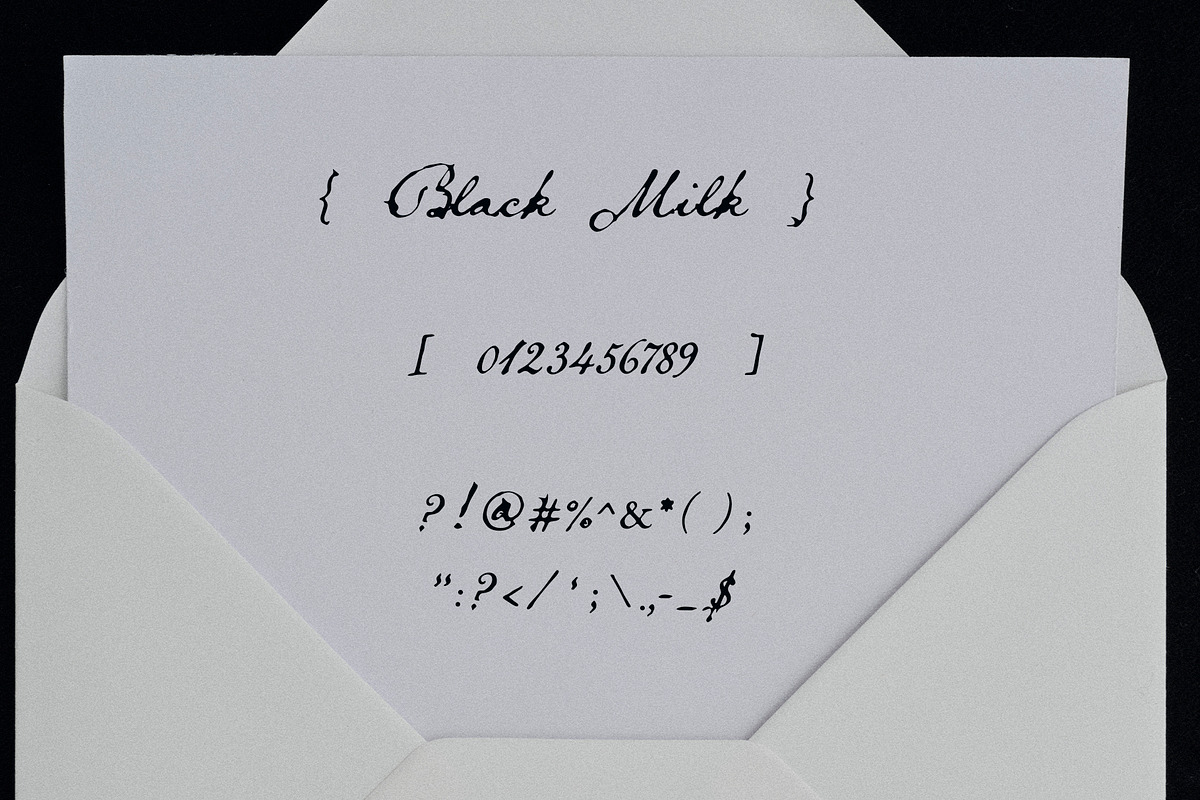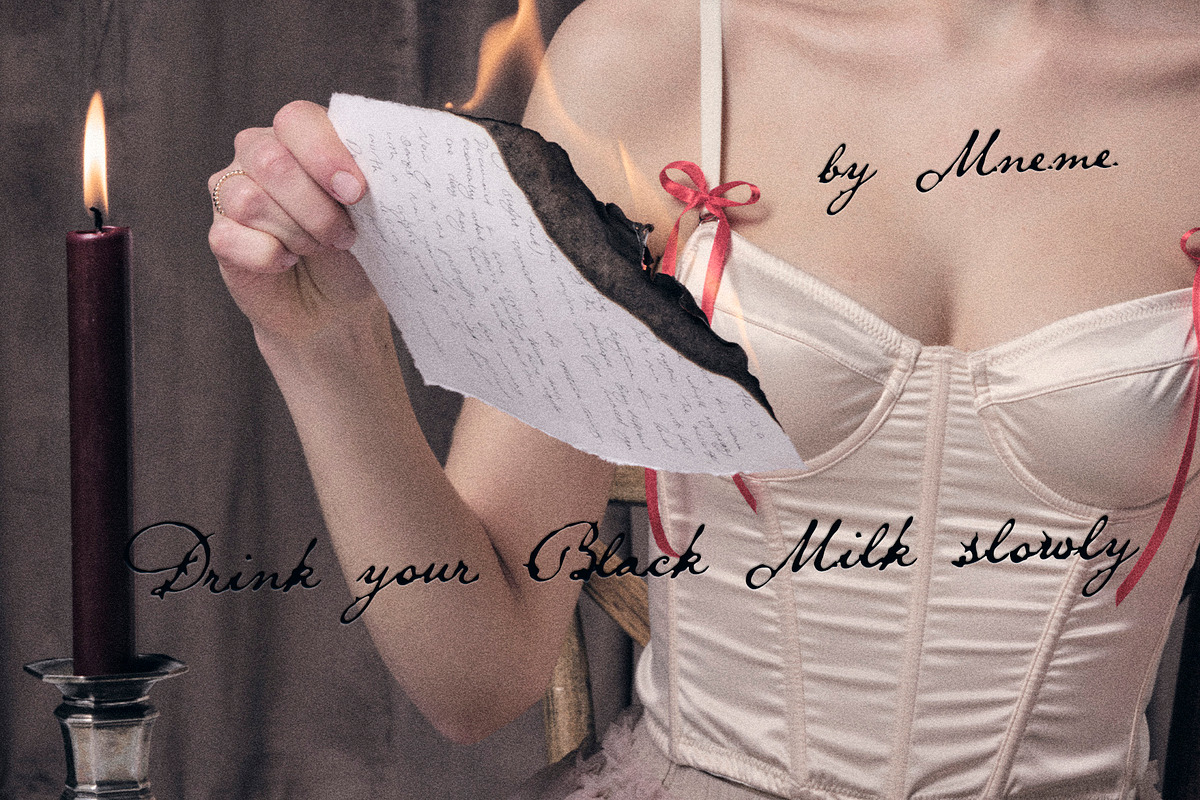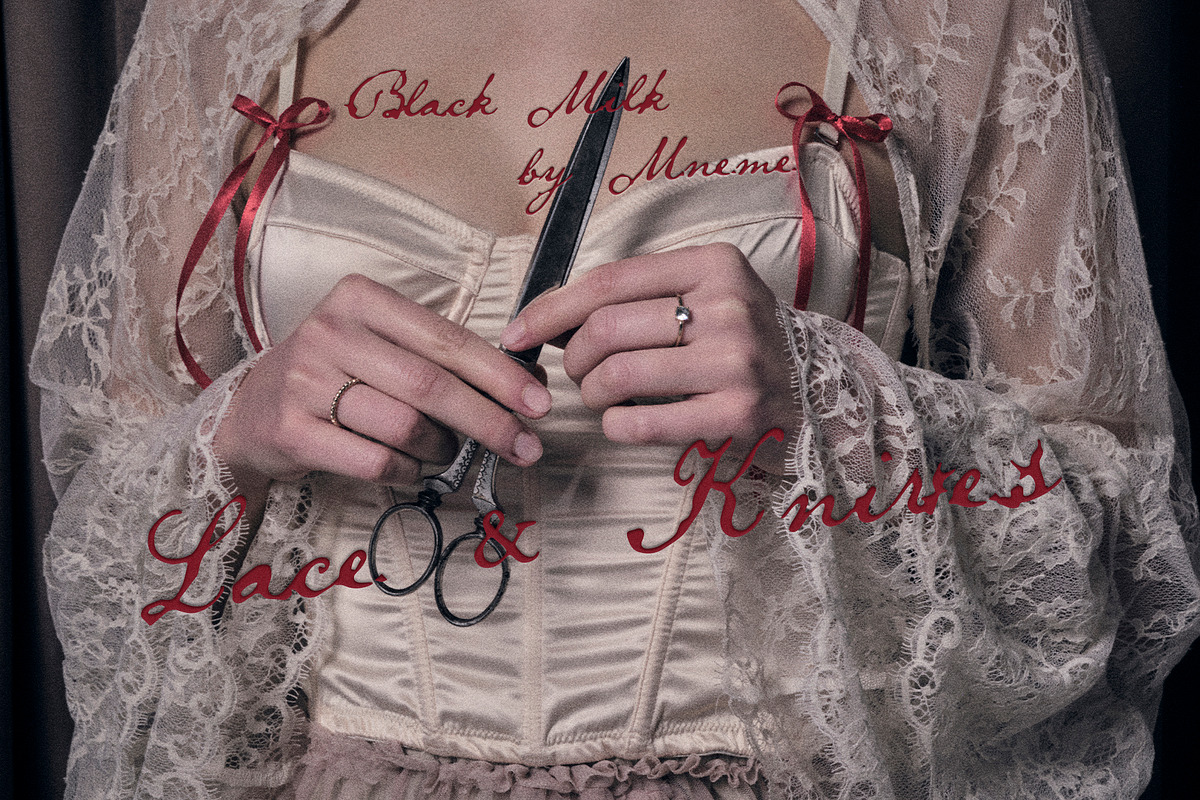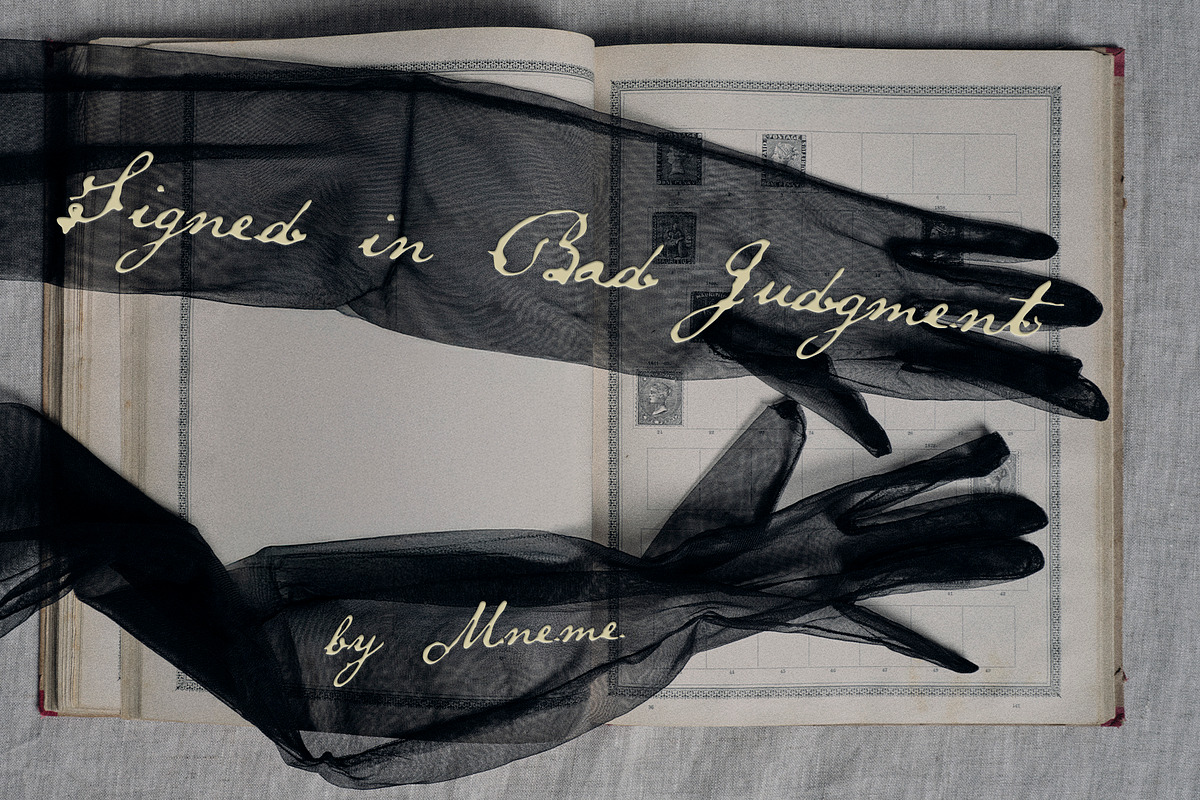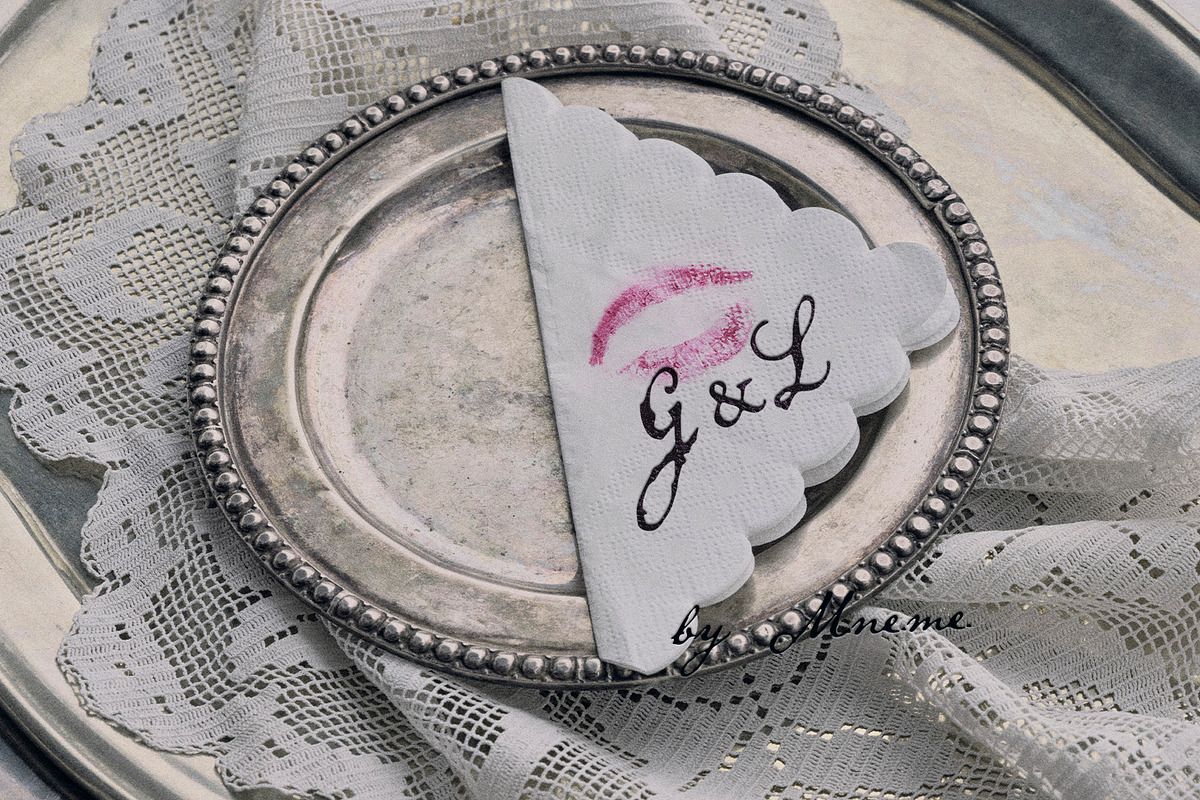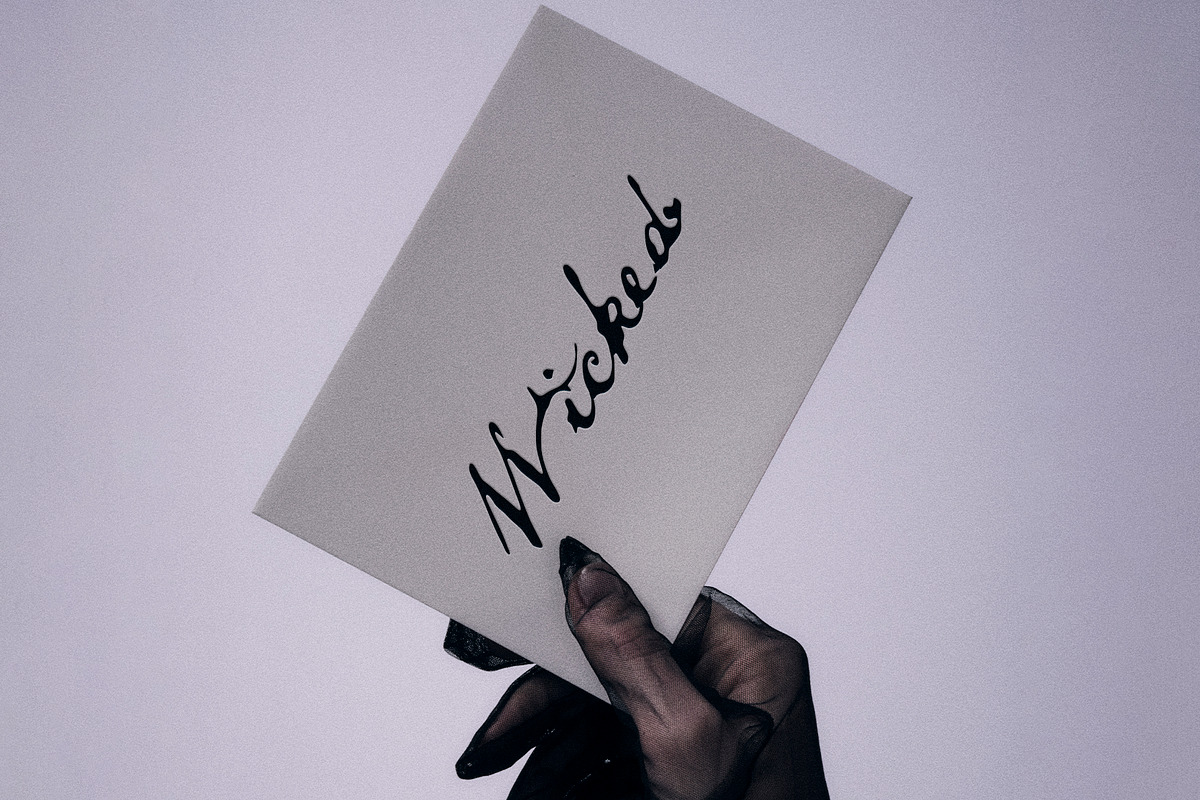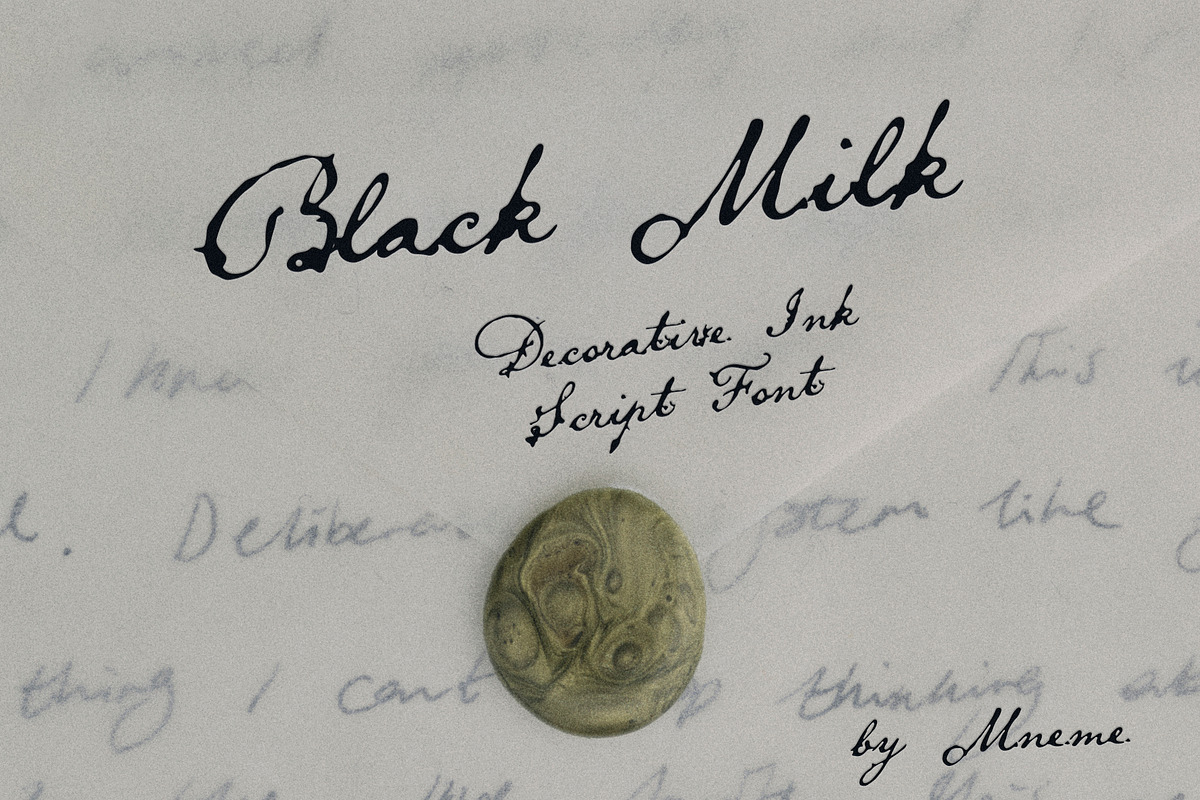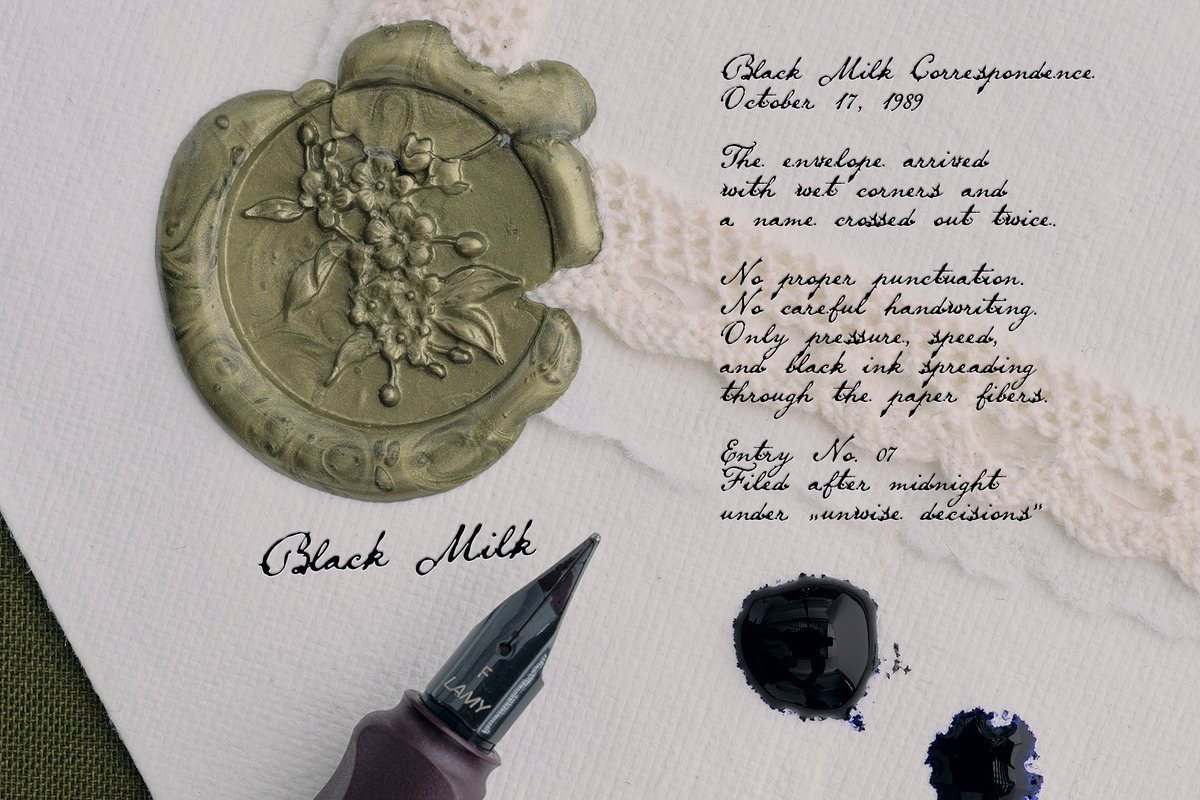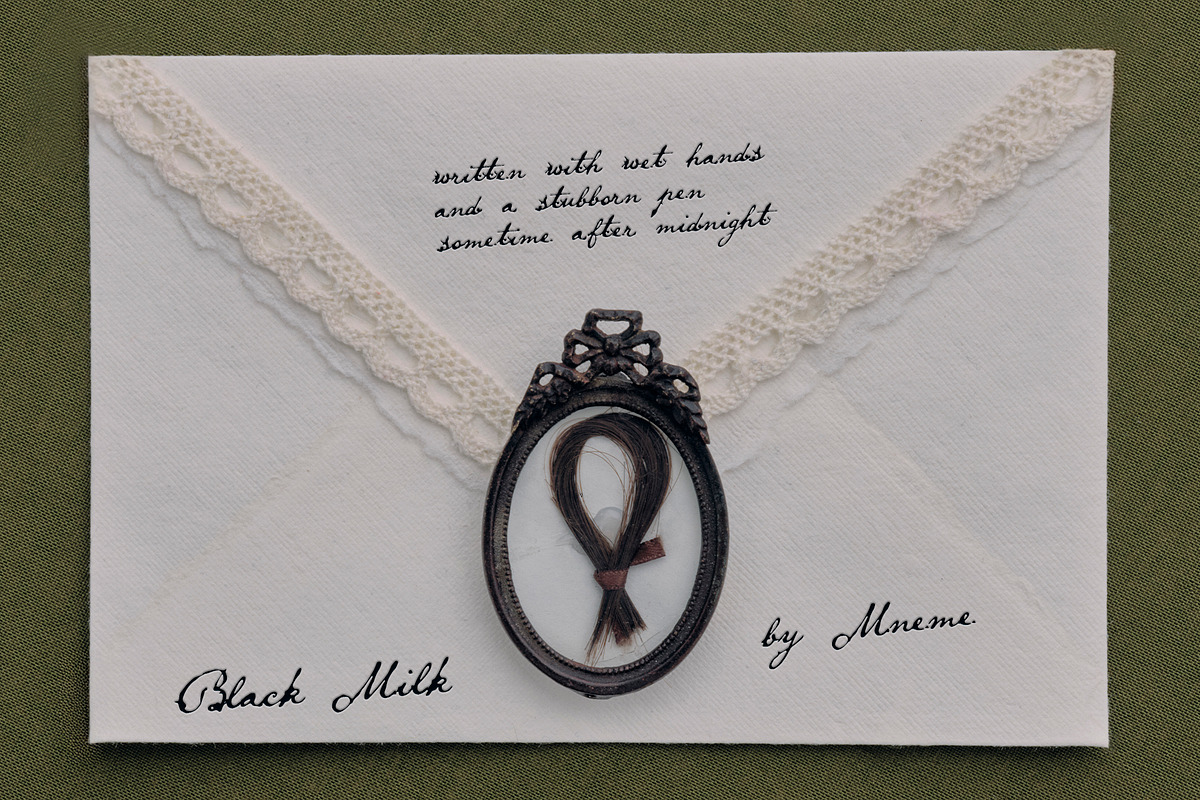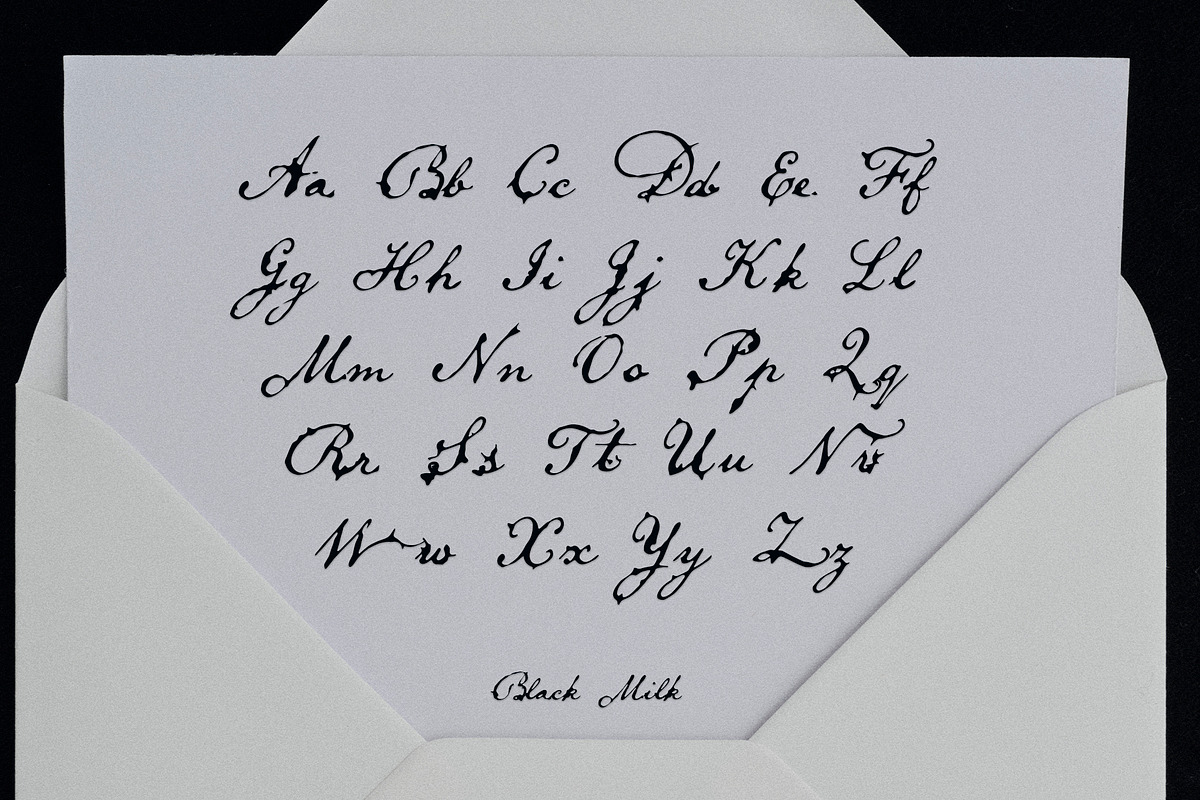
A hand-drawn script font created with bleeding ink, sharp flourishes, and imperfect ornamental detail.
Black Milk is a dramatic decorative script inspired by wet ink, old correspondence, gothic calligraphy, and beautifully excessive lettering. Drawn by hand with uneven pressure and intentionally imperfect curves, the font keeps the texture and instability of real ink on paper.
Perfect for album covers, editorial layouts, branding, fashion campaigns, packaging, invitations, perfume visuals, posters, and dark romantic typography.
Black Milk is a decorative script font built from bleeding ink, restless pen movement, and ornamental excess.
Every letter was drawn by hand with an intentionally uneven rhythm - sharp terminals, collapsing curves, ink-heavy swashes, and imperfect pressure preserved instead of cleaned away. The result feels closer to a found manuscript or unfinished correspondence than a polished digital script.
The font balances elegance with instability: delicate enough for invitations and editorial layouts, but dramatic enough for album covers, fashion branding, packaging, and cinematic typography.
Black Milk works especially well in large titles, layered compositions, romantic gothic aesthetics, vintage-inspired layouts, perfume branding, dark feminine visuals, and expressive editorial design.
PERFECT FOR
editorial typography
album covers
branding & identity
fashion campaigns
wedding stationery
perfume packaging
invitations
posters & titles
social media graphics
dark romantic layouts